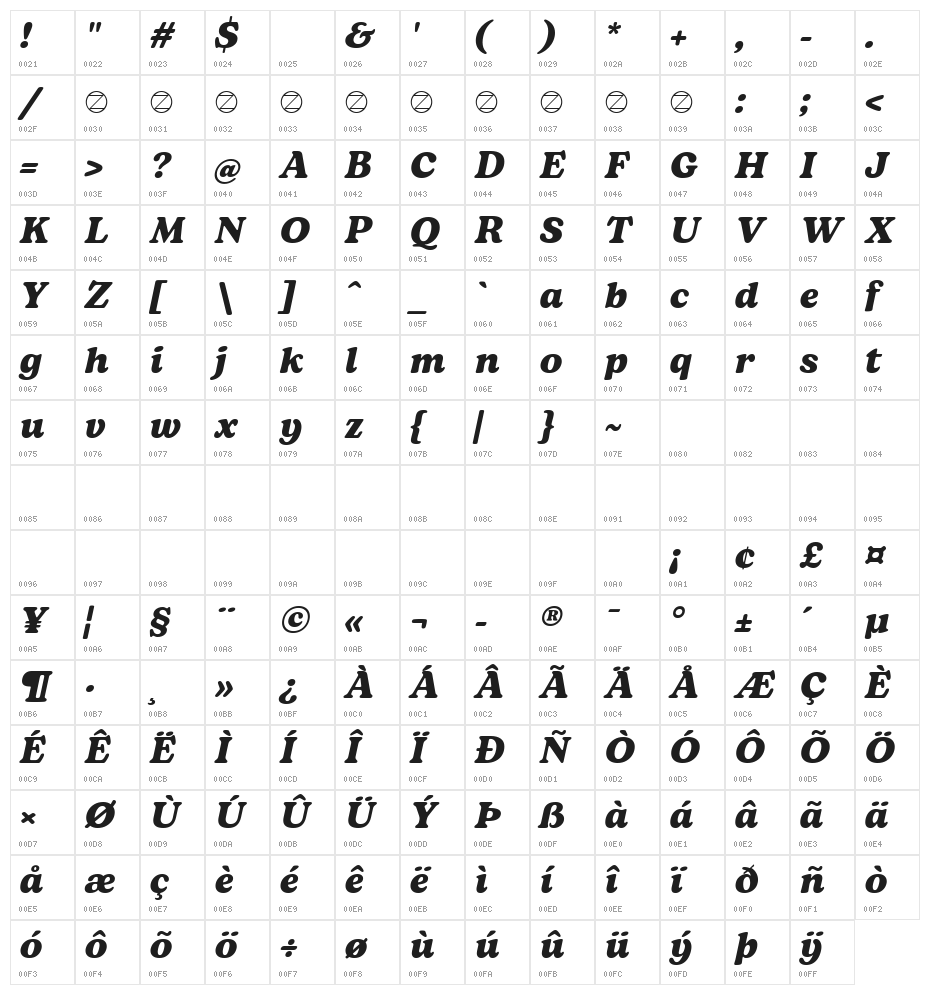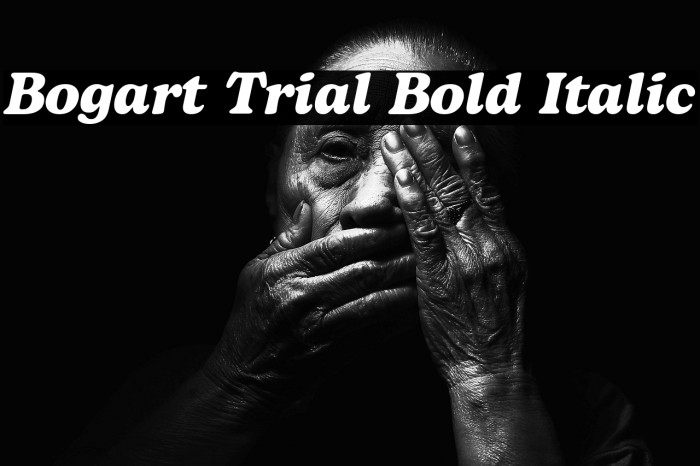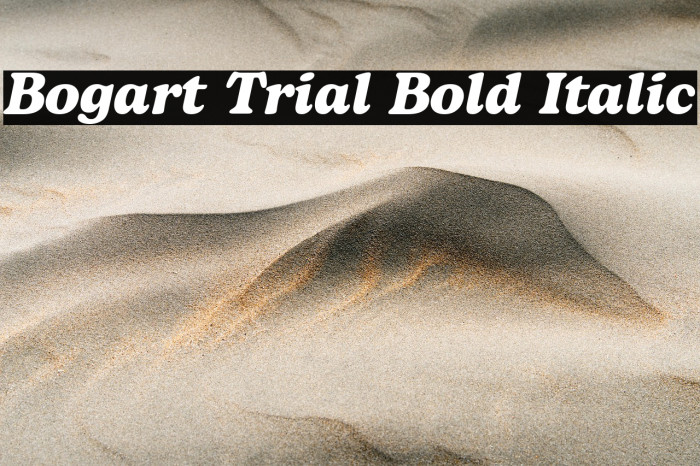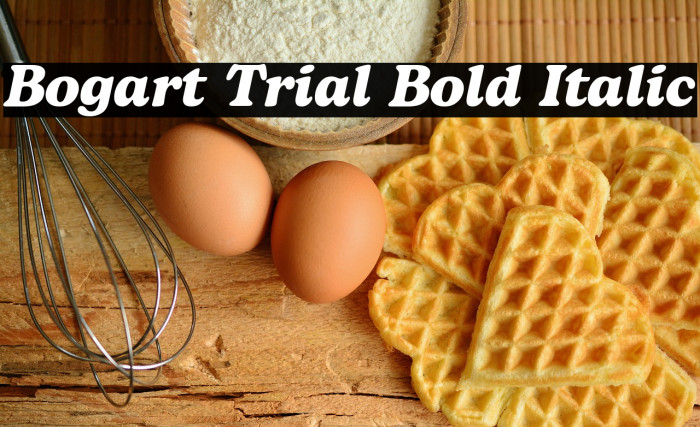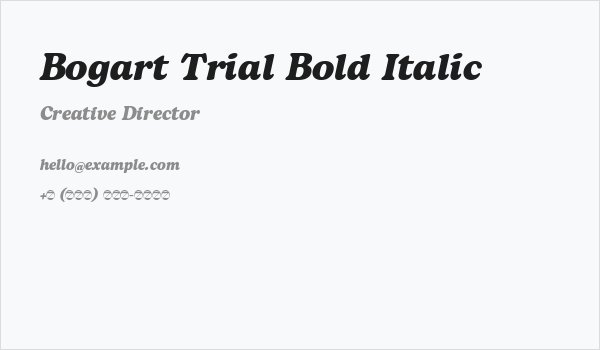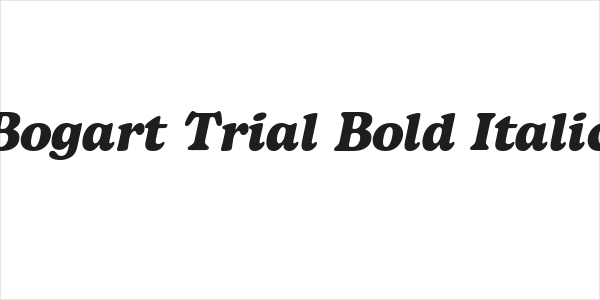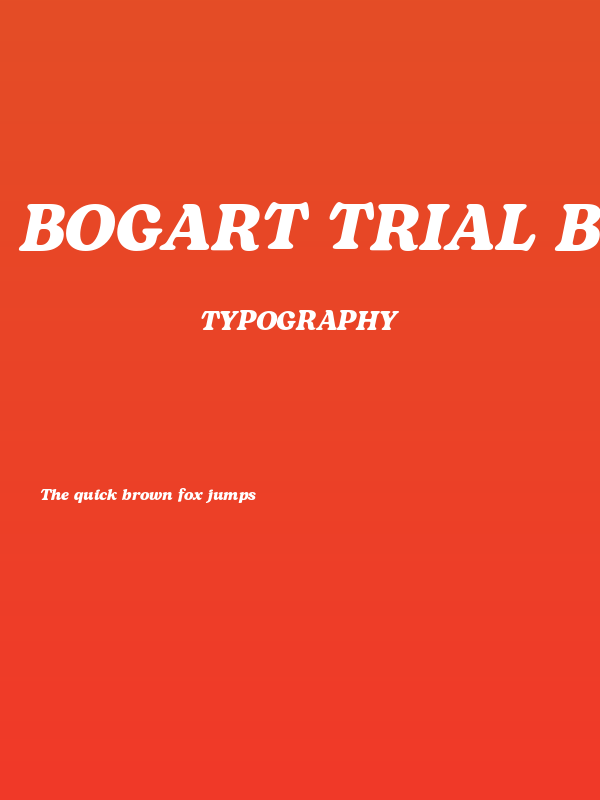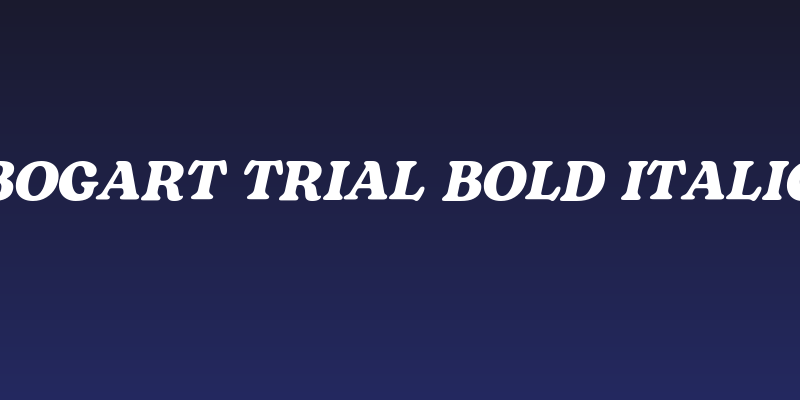
Bogart Trial Bold Italic Font
Bogart Trial Bold Italic Description
This font features a bold and italic style, characterized by its strong and dynamic presence. The letters have a slight slant, adding a sense of movement and elegance. The strokes are thick and consistent, providing a robust and confident appearance. The serifs are pronounced, enhancing the classic feel while maintaining a modern touch. The overall design is cohesive, with each character maintaining a uniform weight and style. The numbers and special characters follow the same bold and italicized theme, ensuring consistency across all elements.